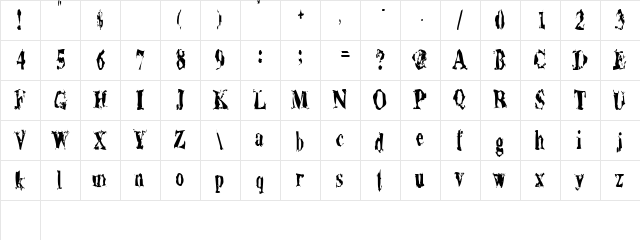
Complete AluminumShredCondensed Regular glyph index. Displaying only characters natively supported by AluminumShredCondensed Regular font.
AluminumShredCondensed is a composed and adaptable typeface that performs quietly and consistently across a wide range of design contexts. Its narrow stance lets it pack a punch even in space-constrained designs.